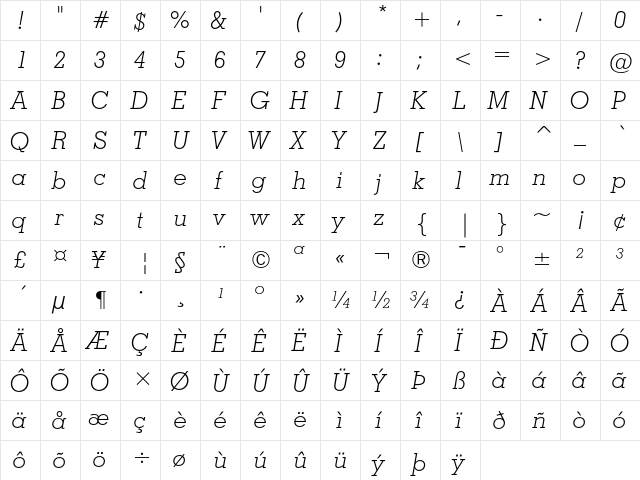
Geometric Slabserif 703 Light Italic Font Preview
Design Context for Geometric Slabserif 703 Typeface
Geometric Slabserif 703 features prominent, blocky serifs that give it a confident, grounded presence — equally at home in editorial settings and bold branding work. The dynamic lean of this cut emphasises speed and emphasis in any layout. The delicate stroke weight brings airiness and refinement to layouts.
Works well in editorial design, news publishing, impactful branding, and poster typography.
Pro Tip: Try Geometric Slabserif 703 set tight in headlines for a classic editorial feel. Its slab serifs create strong horizontal rhythm that anchors a page layout.